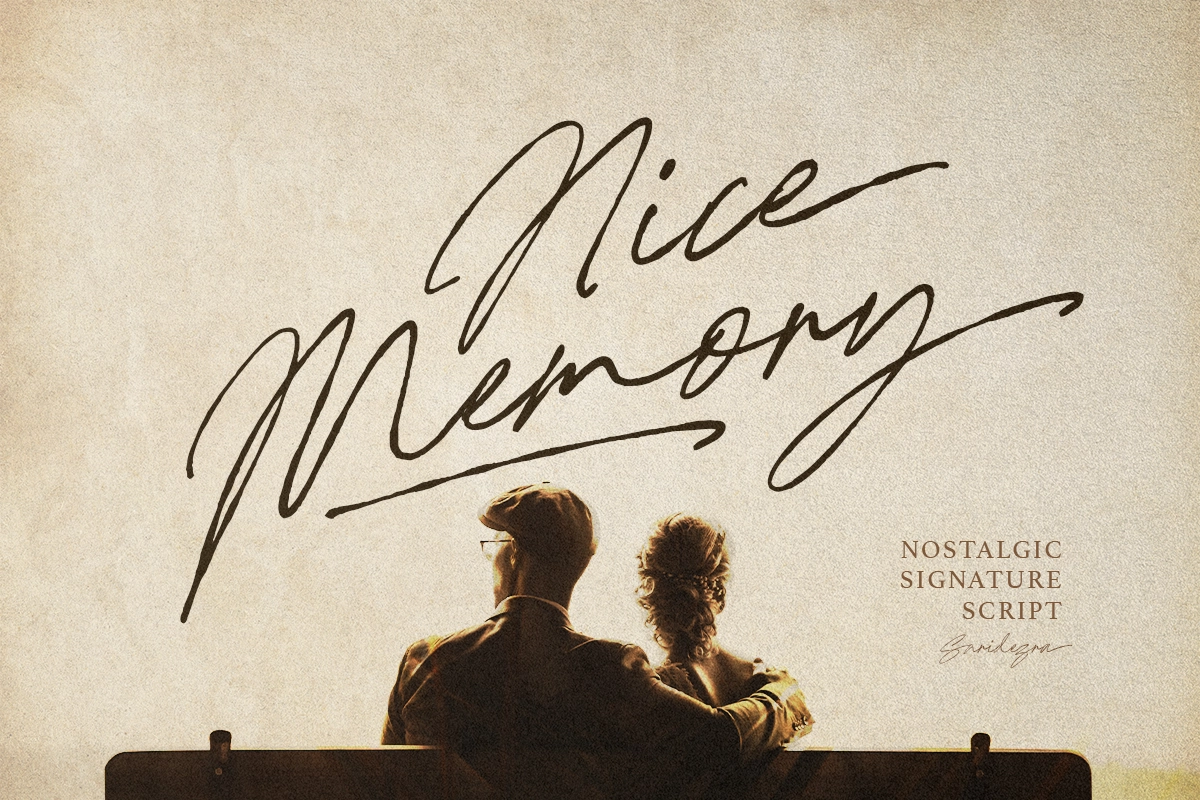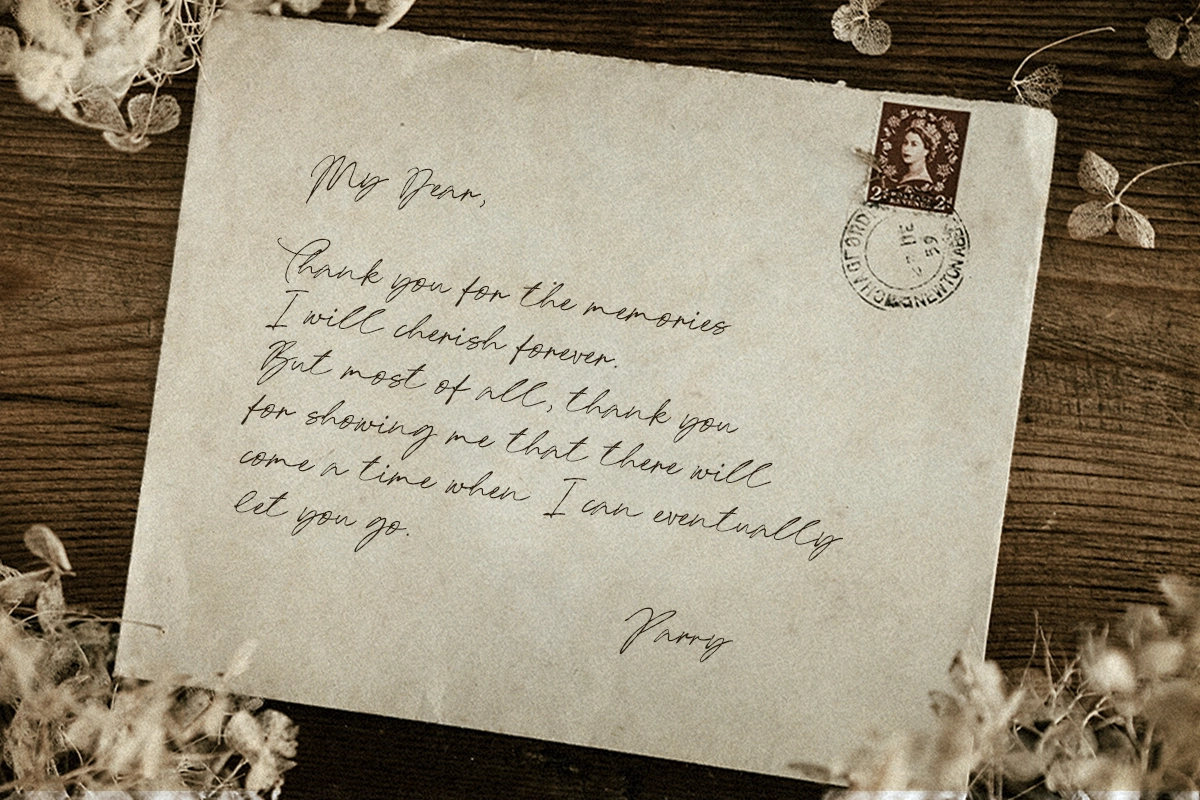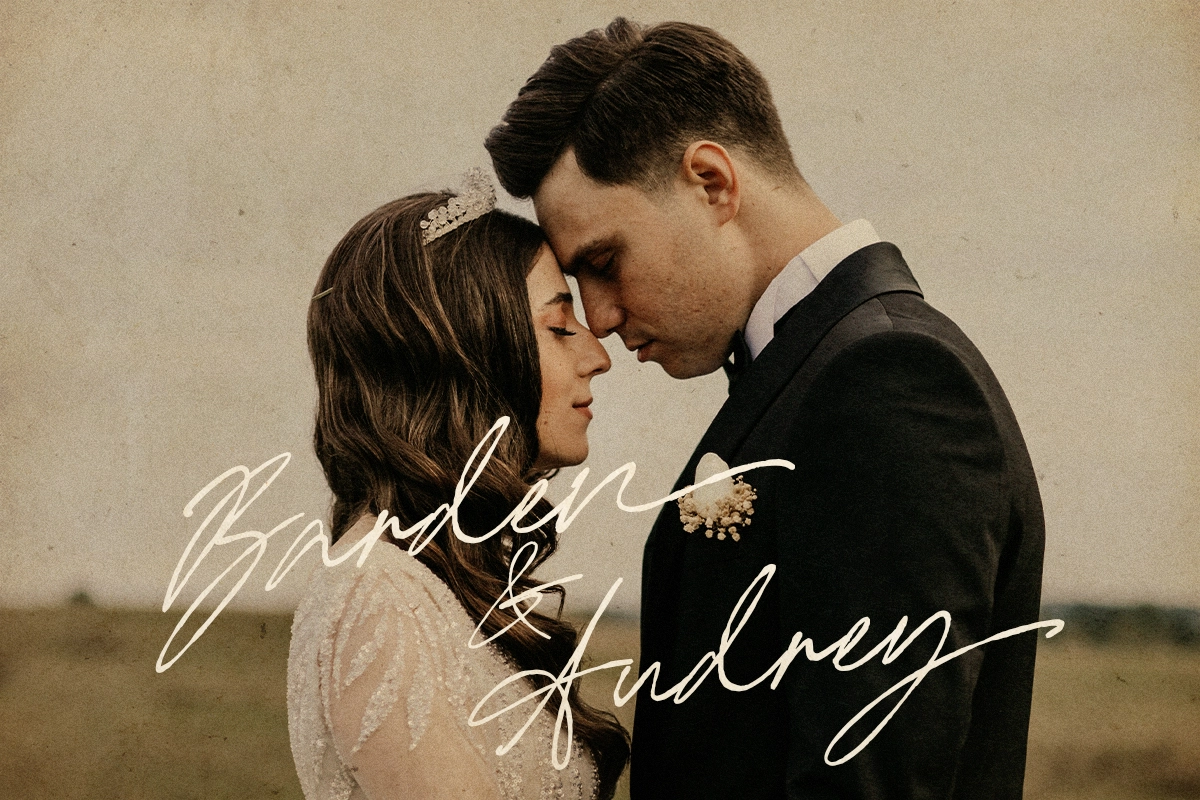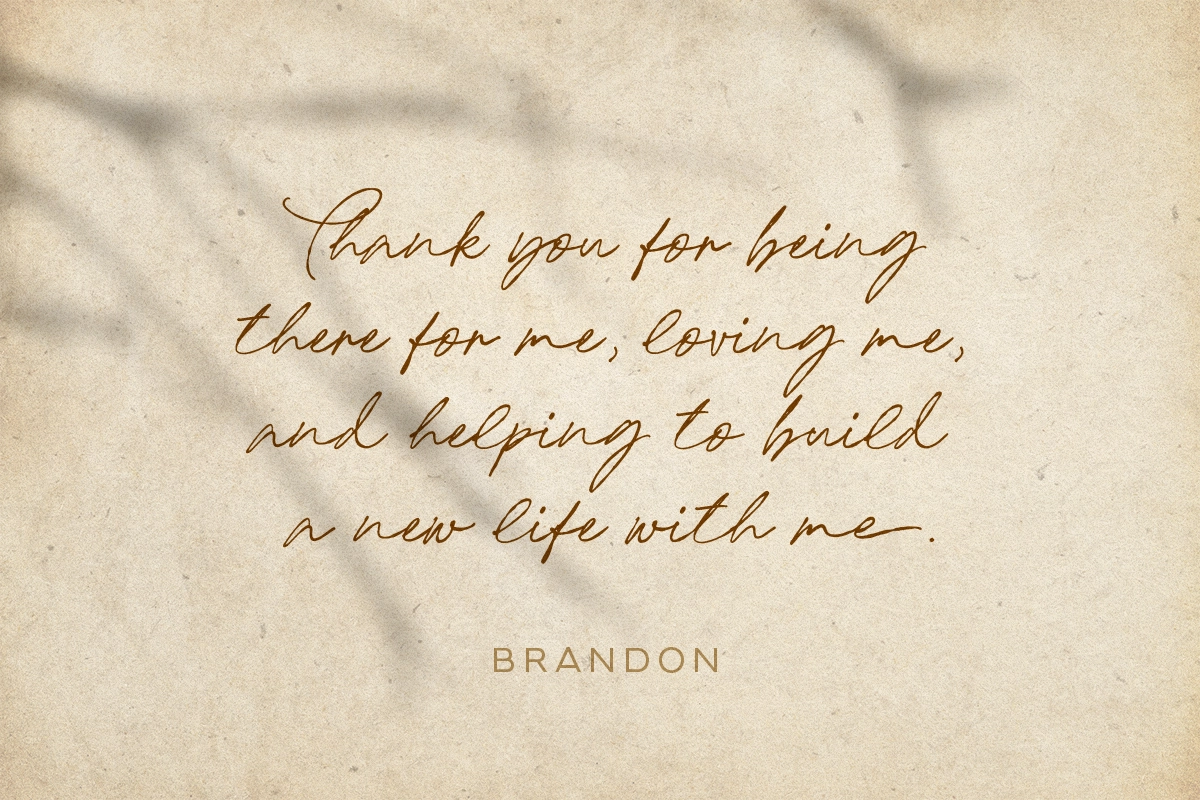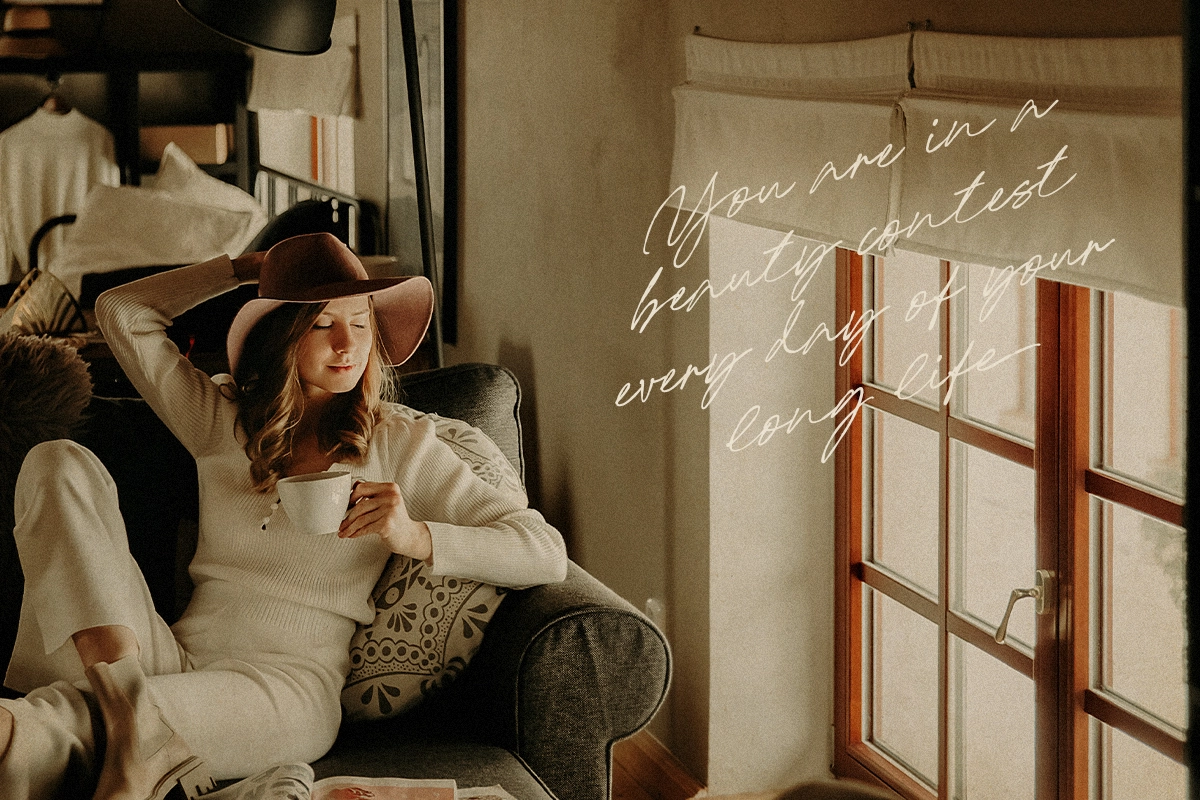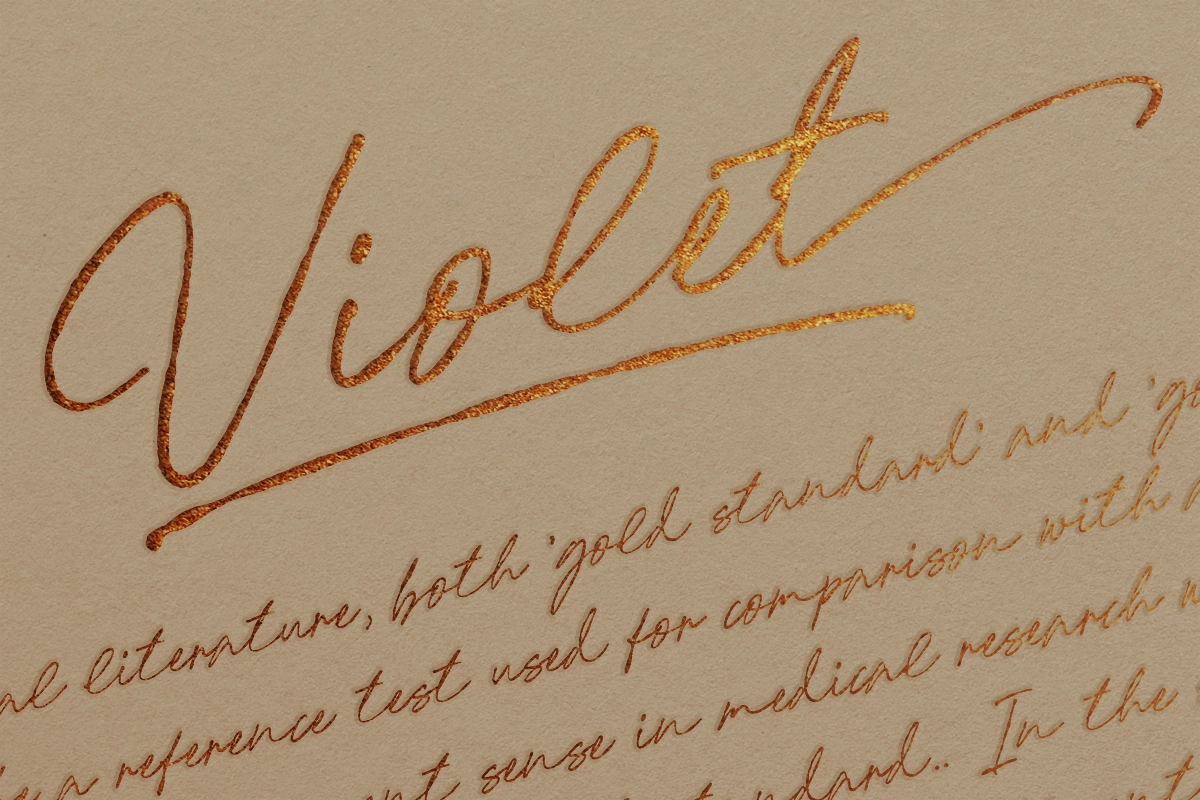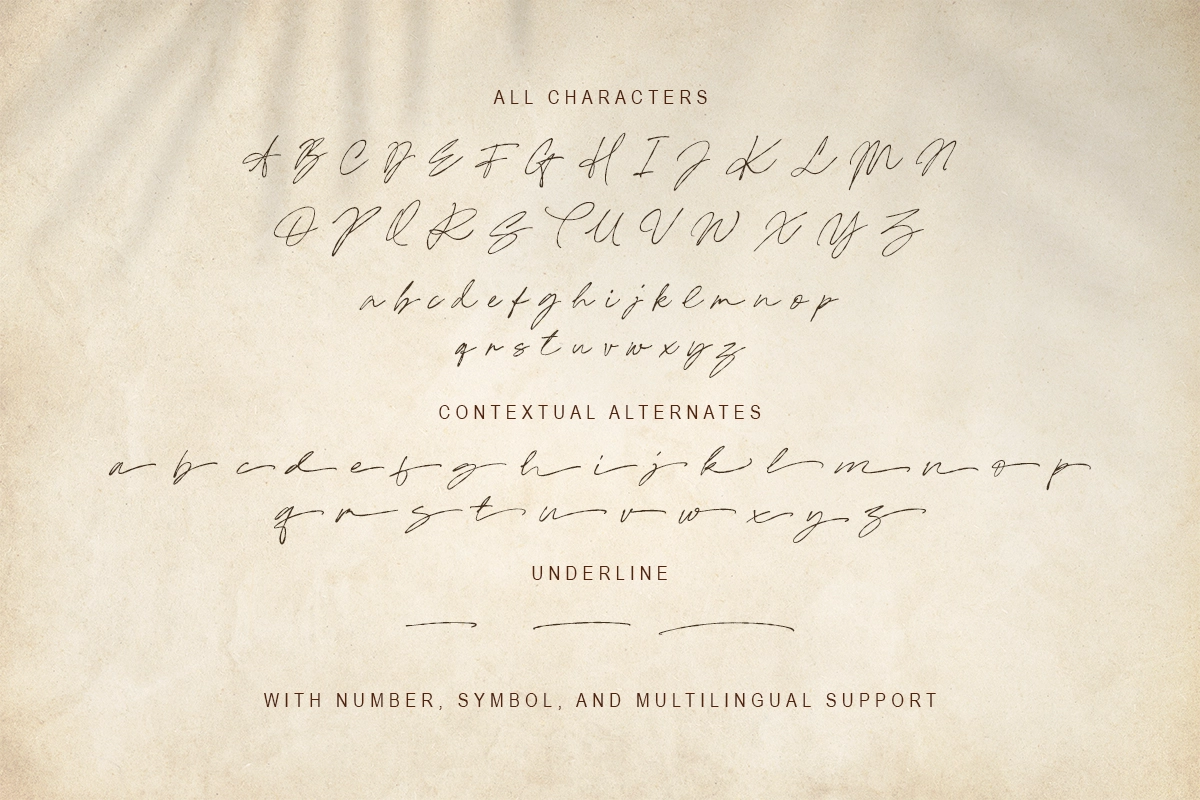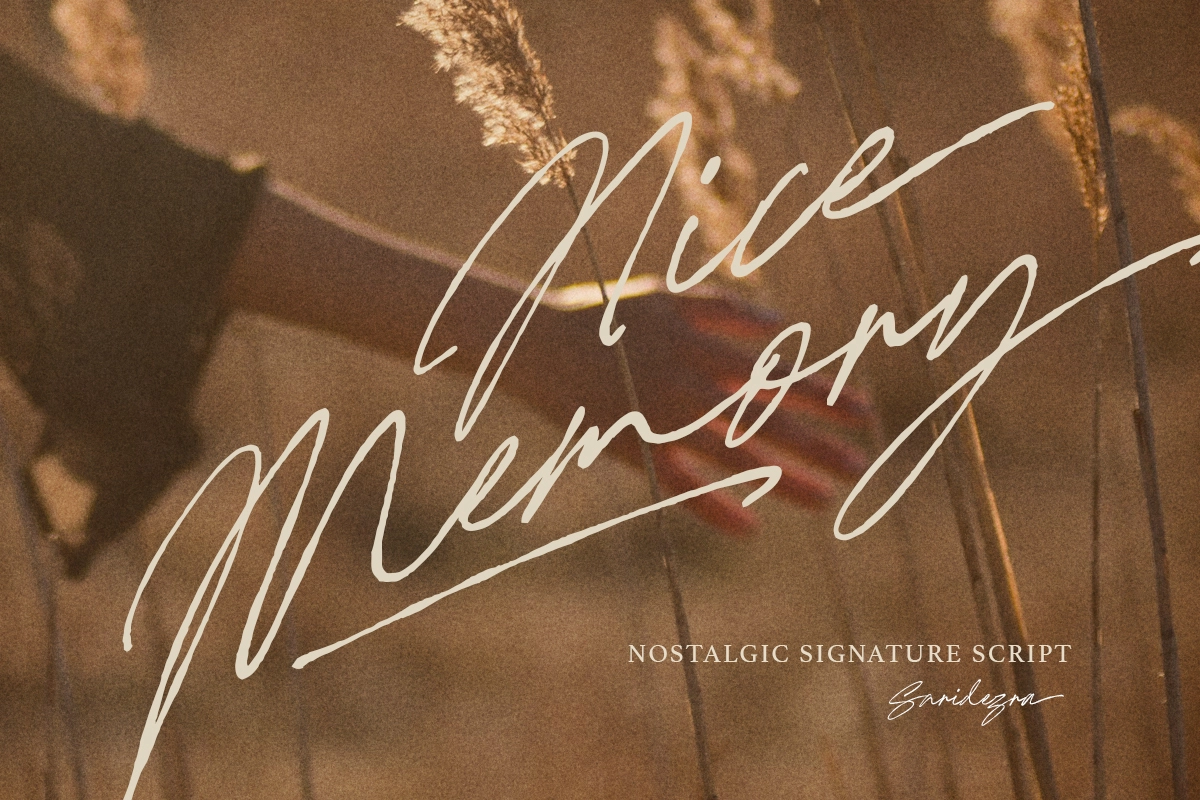
Nice Memory - Nostalgic Script
Nice Memory
Nice Memory is a handwritten signature script that have rough and natural shape that will make your design looks vintage and old. You can use this font for many purpose such as wedding invitations, vintage letter, branding, or even quotes. With ligatures and underline, this font will make your project even more stunning. This font also support multilingual.